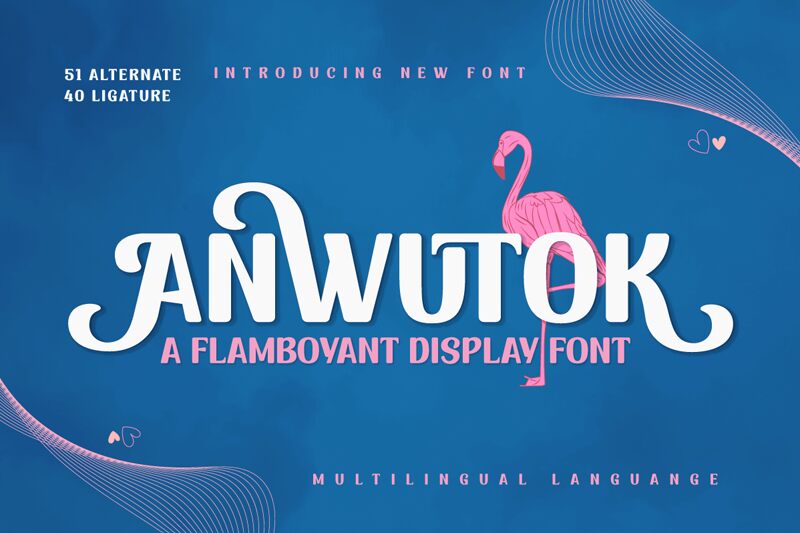
ANWUTOKTRIAL Regular
Anwutok font by Twinletter is a bold serif with geometric influences and modern elements. The font carries a strong presence and an impactful appeal achieving both classic and contemporary styles in one execution.
Use this typeface for headings, book covers, magazines, advertising campaigns, or branding materials. Other examples may include typographic posters, movie titles, video games design, books subtitles, or TV shows captions.